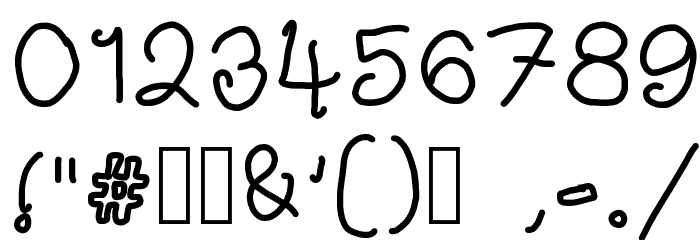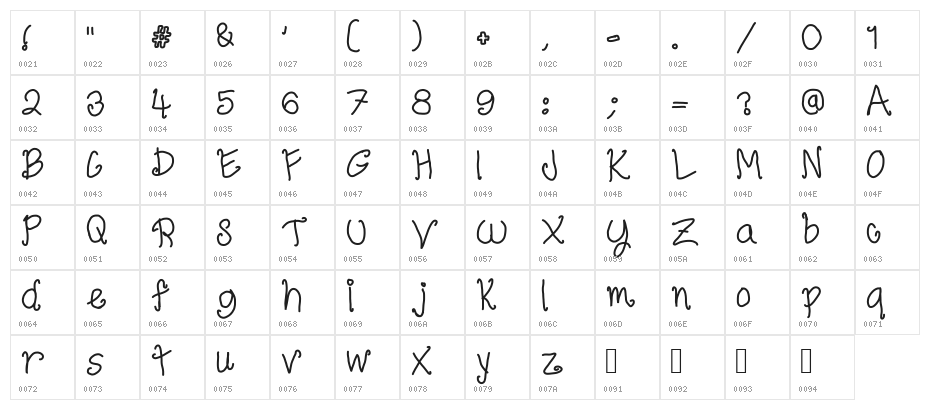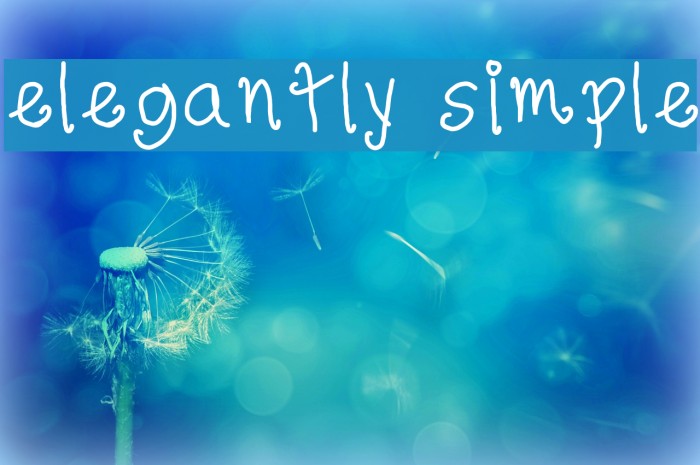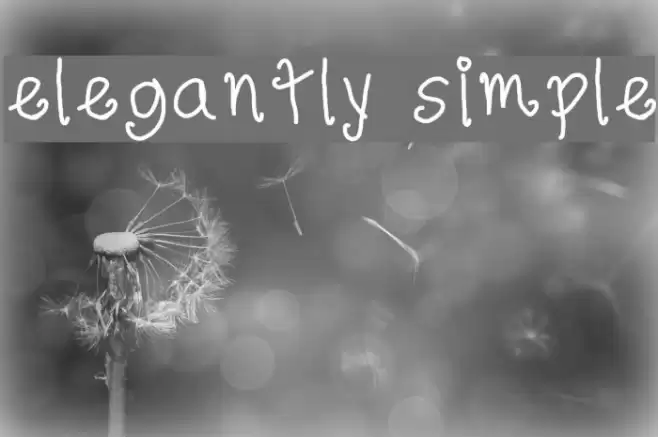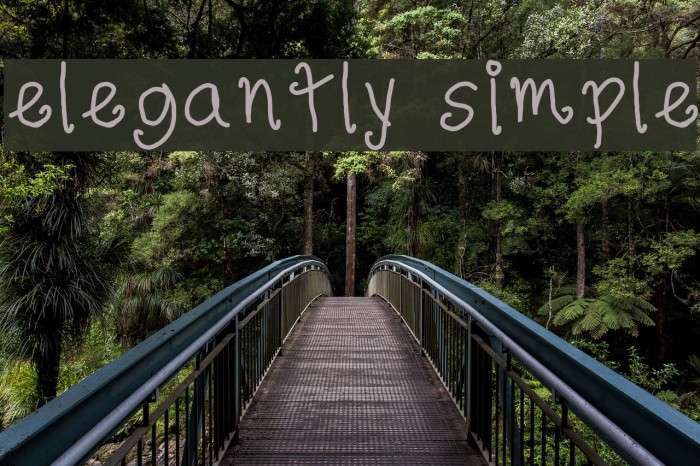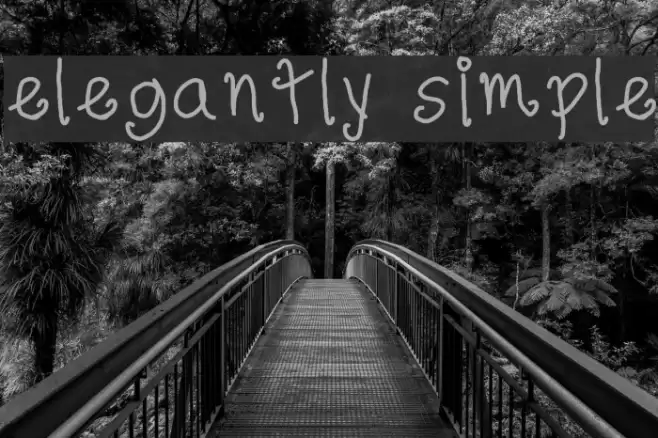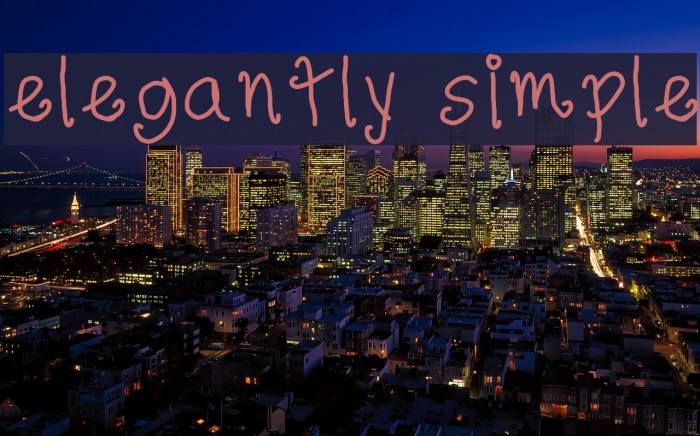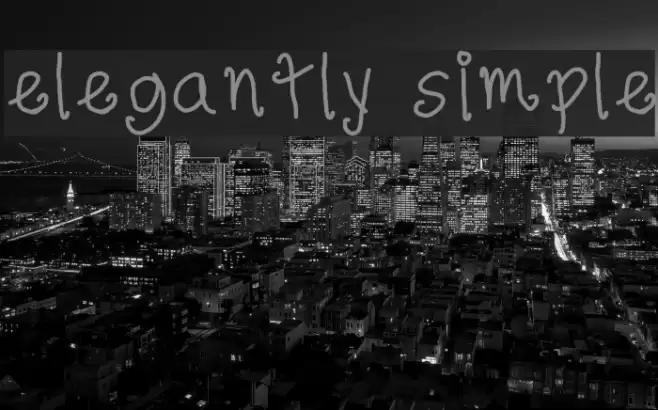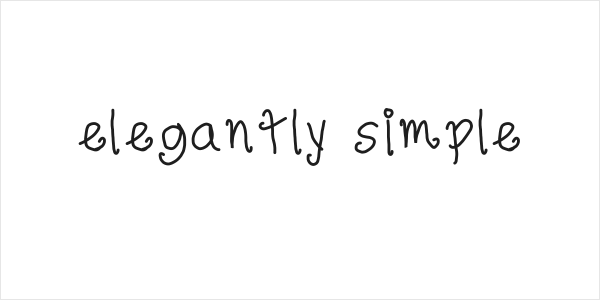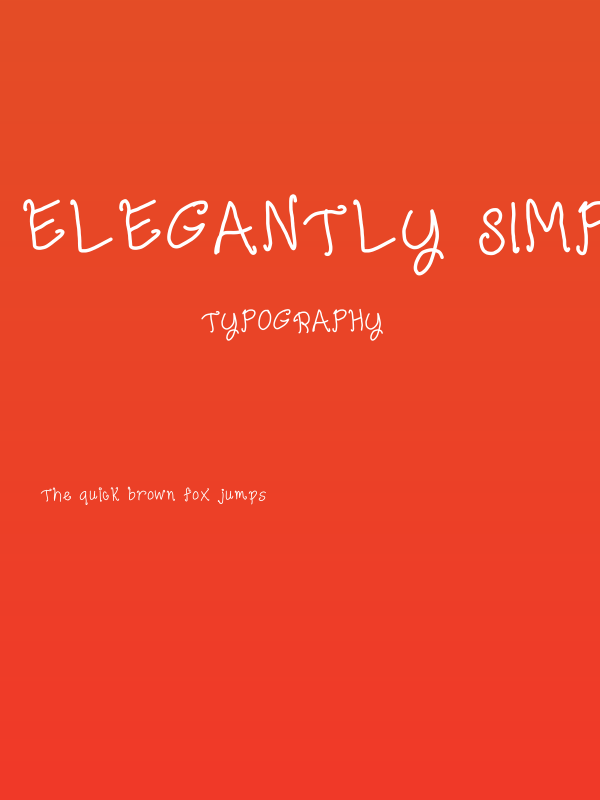
elegantly simple Font
elegantly simple Description
This font features a playful and whimsical design with a handwritten style. The characters are slightly irregular, giving it a charming and informal appearance. The strokes are smooth and rounded, with occasional curls and loops that add to its quirky personality. The uppercase letters maintain a consistent height, while the lowercase letters vary slightly in size, enhancing the casual feel. Numbers and special characters follow the same playful theme, making this font suitable for creative and fun projects. Its unique style is perfect for adding a personal touch to any design.
| Proposed Projects | Ideal for greeting cards, children's books, playful branding, and casual invitations. |